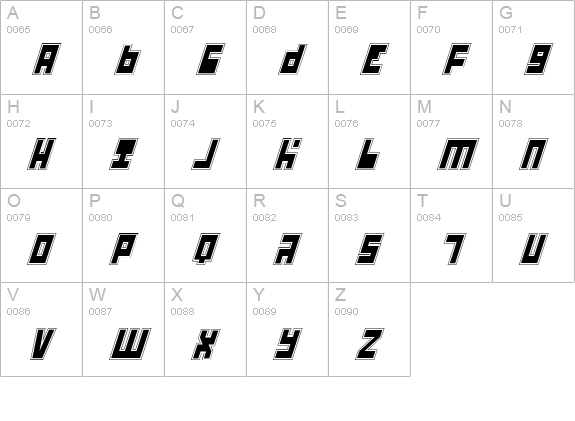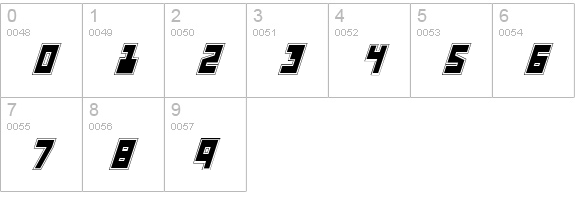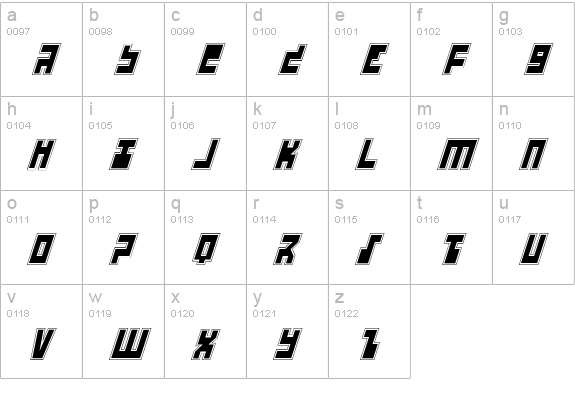
UFO Hunter Academy Italic is a distinctive, italic variant in the UFO typeface family \xE2\x80\x94 well suited to design and typography projects.
Embark on an otherworldly typographic journey with UFO Hunter Academy Italic font! This unique and futuristic typeface is perfect for adding a touch of mystery and intrigue to your design projects. Whether you're creating a poster for a sci-fi event or designing a logo for a paranormal podcast, UFO Hunter Academy Italic font will surely make a statement. With its sleek and sleek design, this font exudes a sense of adventure and exploration. The italic style adds a dynamic flair to your text, making it stand out and command attention. Let your creativity soar as you use UFO Hunter Academy Italic font to bring your ideas to life. The best part? UFO Hunter Academy Italic font is **freely available to download** at FontsMarket.com! Say goodbye to boring typography and elevate your designs with this captivating font. Don't miss out on the opportunity to add a touch of the unknown to your projects with UFO Hunter Academy Italic font. Download it today and let your imagination take flight!